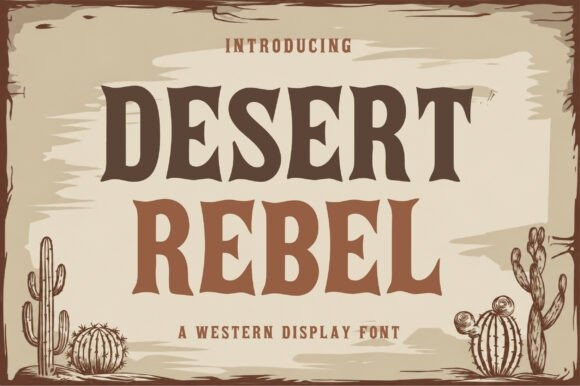
Desert Rebel Font
Designer: Artisan Vibes
Desert Rebel Font is a bold western display font inspired by vintage cowboy posters and dusty desert landscapes. Featuring sharp serif details, rugged curves, and a classic western vibe, this font is perfect for retro branding, western logos, saloon posters, apparel designs, Cricut projects, invitations, packaging, and vintage-themed creations. Its strong character style brings an authentic wild west feel to any design project